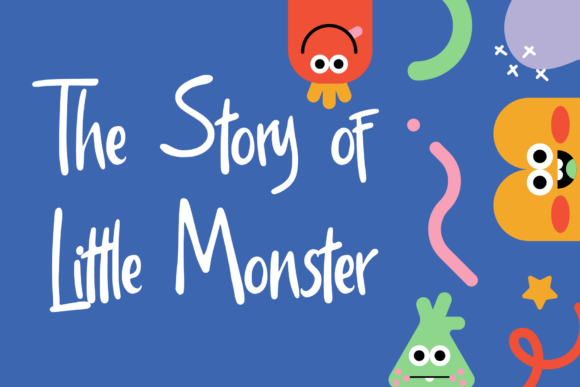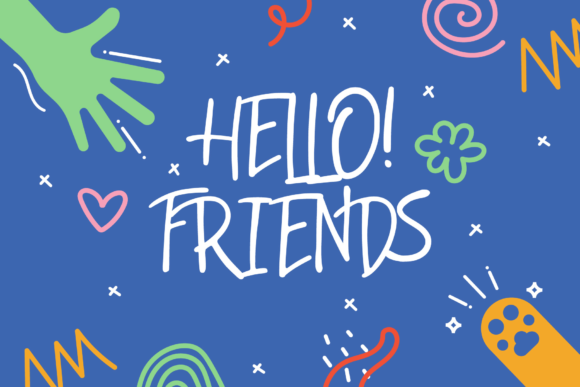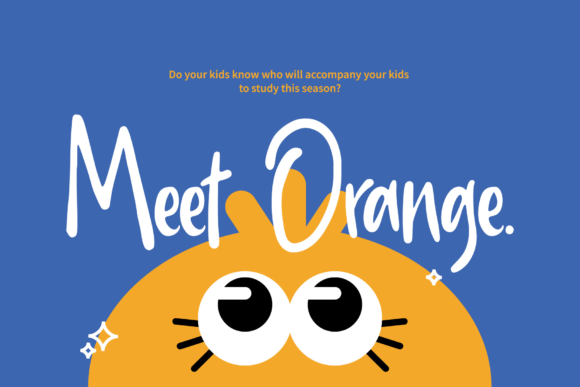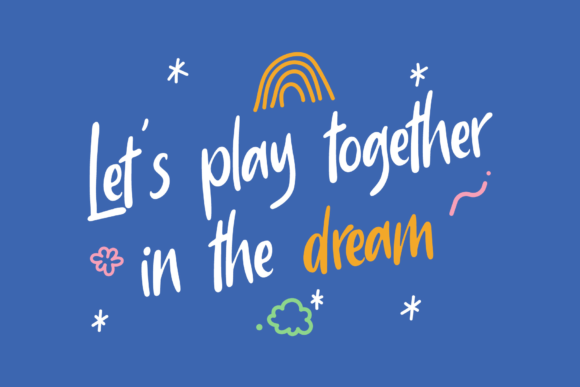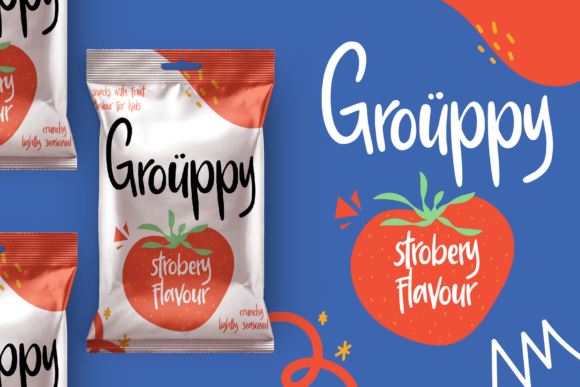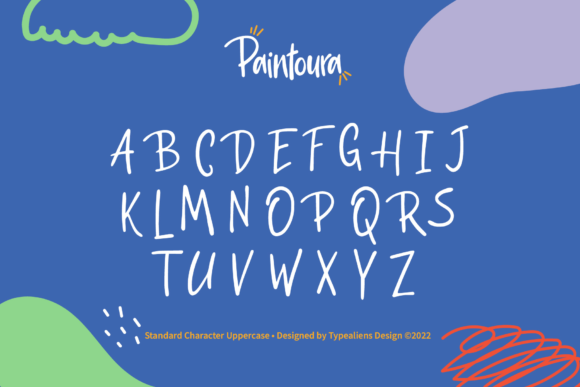
Introduction to Paintoura Font
Imagine you’re brainstorming ideas for a new social media campaign and suddenly, the perfect font pops into your mind. You envision a playful, high-quality design that instantly captures your audience’s attention. That’s exactly what the Paintoura Font can do for your creative project.
As a designer, you’re always on the lookout for unique and versatile fonts that can elevate your work. The Paintoura Font is an excellent addition to your design resource library, offering a relaxed display style that’s perfect for branding, social media, and a wide range of products.
Key Features of Paintoura Font
- Unique, hand-drawn style with a transparent background, ideal for adding a personal touch to designs.
Honest Review: Paintoura Font
As a designer, I’m always on the lookout for high-quality design resources to enhance my creative projects. Recently, I had the chance to try out the Paintoura Font, and I’m excited to share my honest review with you.
What works well: ✨ The Paintoura Font is a beautifully crafted, elegant font that’s perfect for any project that requires a touch of sophistication. It’s free to download, making it an excellent addition to my design arsenal. The font is available in various formats, including OTF and TTF, which is convenient for designers who work with different software.
Limitations: ⚠️ While the Paintoura Font is an excellent addition to any design project, it’s not without its limitations. The font is not as versatile as some other fonts on the market, and it may not be the best choice for projects that require a bold, playful font.
Overall impression: The Paintoura Font is a solid choice for designers who are looking for a high-quality, elegant font to enhance their creative projects. While it may not be the best choice for every project, it’s definitely worth checking out for designers who want to add a touch of sophistication to their work.
Tips for Getting the Most Out of Paintoura Font
Use Paintoura Font for high-quality, creative projects. This font is perfect for design resources that require a unique and creative touch. Make sure to use a transparent background to get the best results.
Paintoura Font is commonly used in creative projects such as logos, social media graphics, and infographics. It’s also a great resource for designers who want to add a touch of elegance and sophistication to their designs.